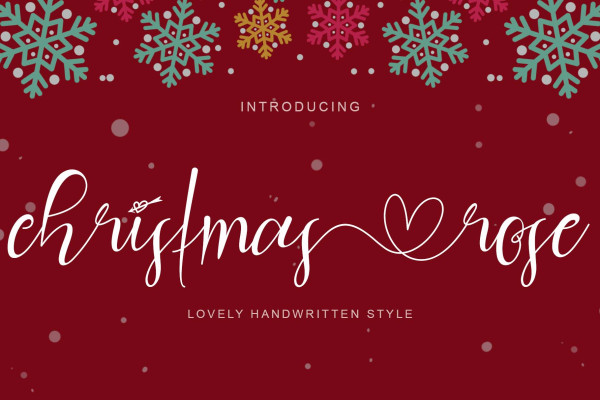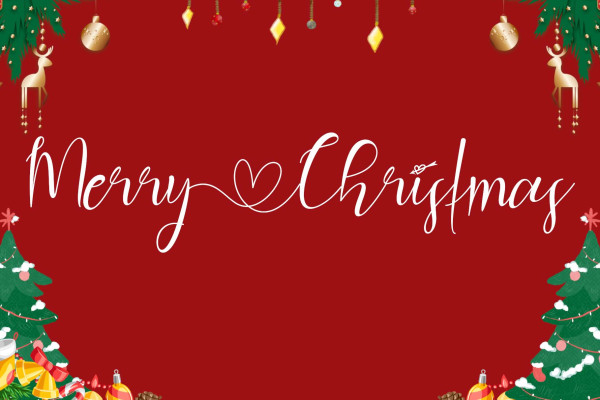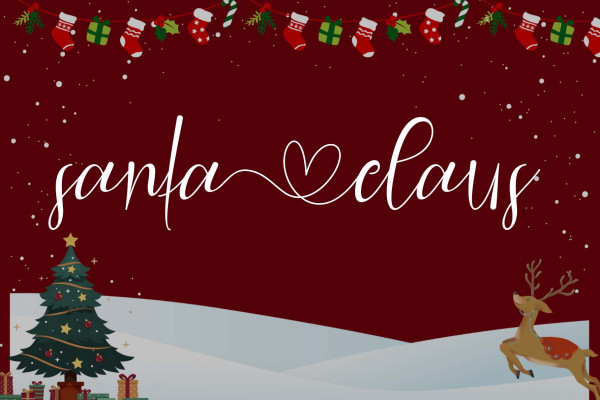
Christmas Rose Font
Christmas Rose Font is a handwritten font with a very beautiful and unique love decoration. This font is equipped with uppercase, lowercase, alternates, numerals, punctuation, and multilingual support. Very suitable for weddings, engagements, stickers, banners, posters, print, branding, Christmas, Valentine, and others.